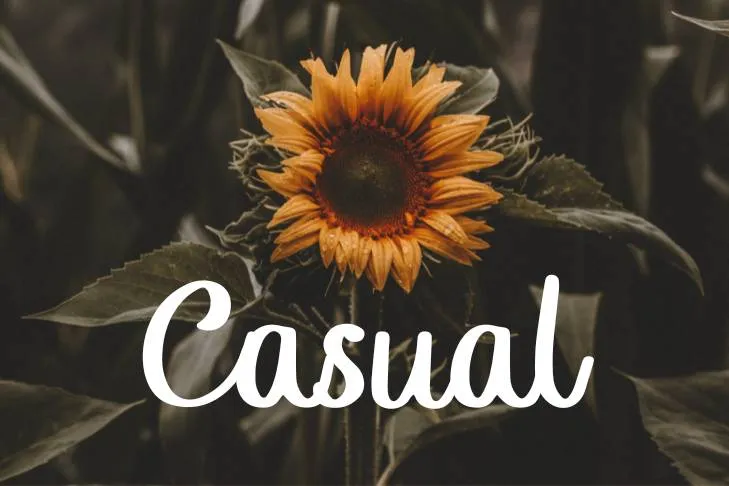
A Calligraphic typeface always creates an awe-inspiring outlook for your project. I personally enjoy it when I have to discuss any Script or calligraphy typeface. In today’s post, I’m going to discuss another marvelous Calligraphic typeface which is though plain and ordinary font but, imparts an eye-catchy effect when used for any purpose named Himsomnia Font.
This stunning and delicate typeface is wonderfully devised by a famous font foundry named Ardyana Types. It is comprised of all the basic features required to construct a decent typeface. It includes both upper and lowercase letters, punctuations, symbols, and numerals along with a beautiful set of swashes and stylistic alternates.
Unique Features of Himsomnia Font
It has a soft and sophisticated outlook which is suitable for various tasks. This elegant typeface can be employed for designing logos, and website interfaces, or for leading a promotional campaign for various brands. Its unusual lettering style displays a pleasing effect and thus, grabs the attention of viewers quickly. You can also get a new texture typeface after making a pair with hulu font.
Furthermore, this sophisticated typeface can also be employed for fashion-related purposes, official documentation, and for creating impressive video gaming interfaces. Most coffee brands also go with this stylish typeface to create an identity for their brands.
Designer of Himsomnia Font
Ardyana is a name of graphic designer who belongs to Indonesia and he has presented several typefaces and is quite prominent among other designers. His font foundry is called Ardyana Types which he used to develop these fonts.
What type of font is Himsomnia Font?
This font and delicate font is fantastic and devised by a famous font foundry named Ardyana Types. It is comprised of all the basics required to build a decent style.